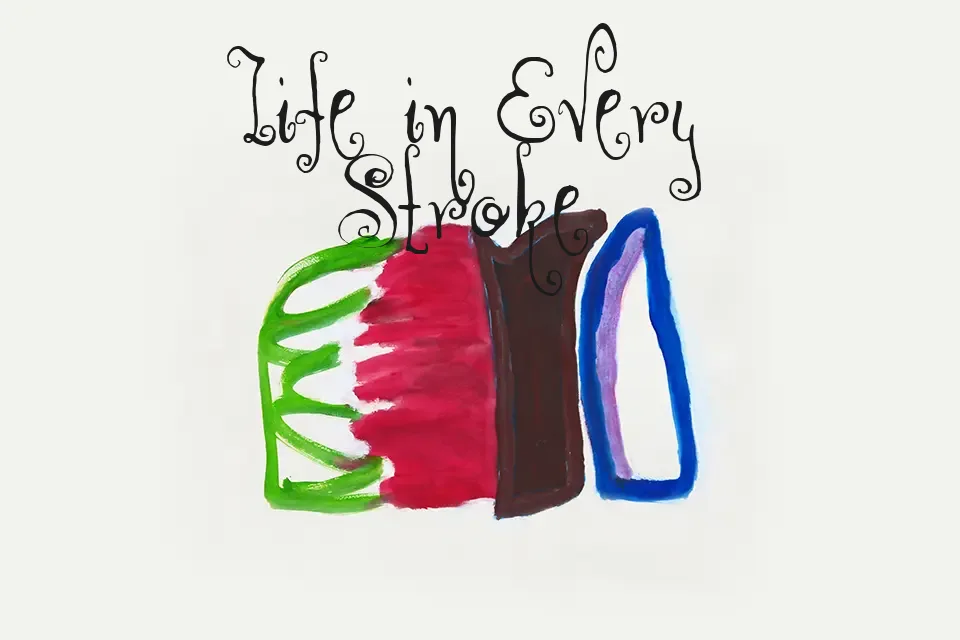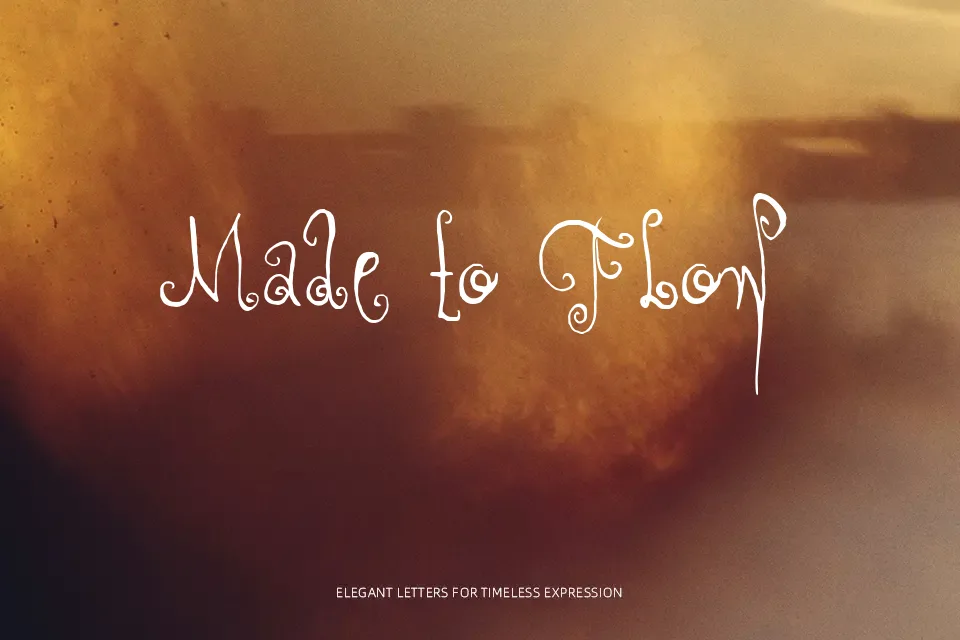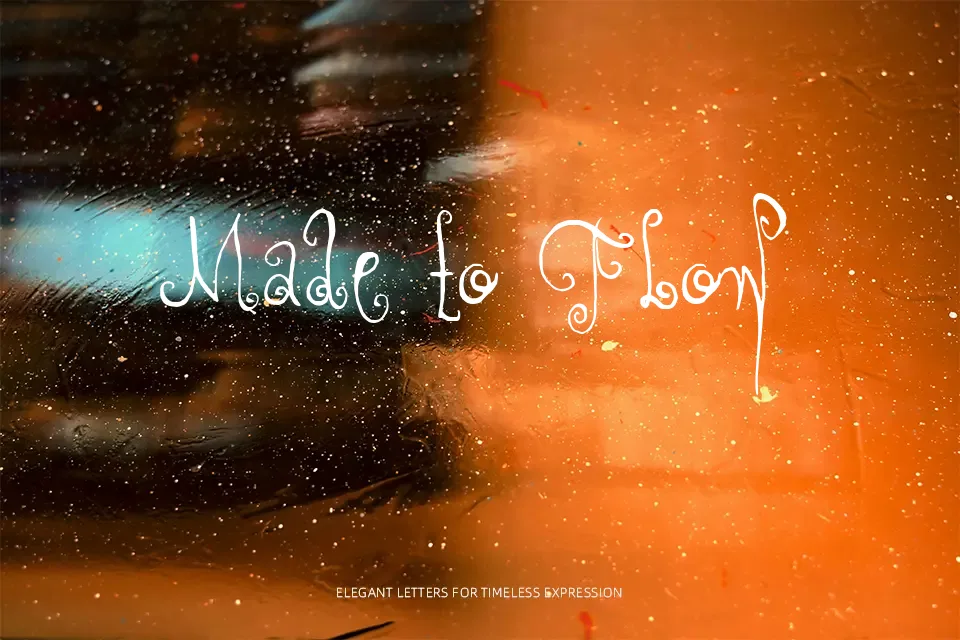
DK Monsieur Le Chat Font
Designed by Hanoded
DK Monsieur Le Chat leans into a light, looping script structure with narrow strokes, generous curves, and tall flourishes that reach above and below the baseline. The tone feels playful with a dressed-up edge rather than strictly formal, which makes it useful for invitation names, patisserie packaging, vanity headlines, and boutique branding. It reads best when only a few words need motion and charm, especially at display sizes where the swashes can spread out. In tighter layouts, those same curls begin to crowd each other, so I would skip it for body copy, compact navigation, or marks that must stay sharp at very small sizes.
Best For: boutique invitations, pastry shop menus, fashion-style headlines, gift packaging
Not Ideal For: body text, dense logos, small UI labels, long paragraphs
Perfect for branding, headline, and invitation, with a artistic and decorative style.